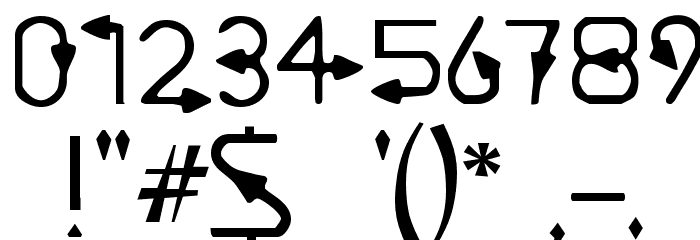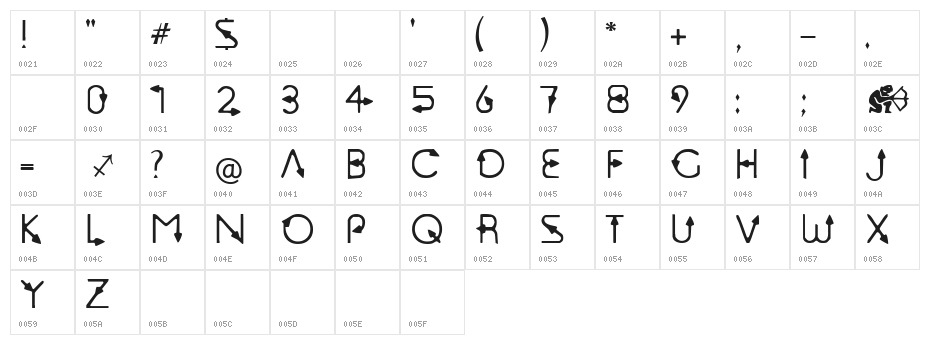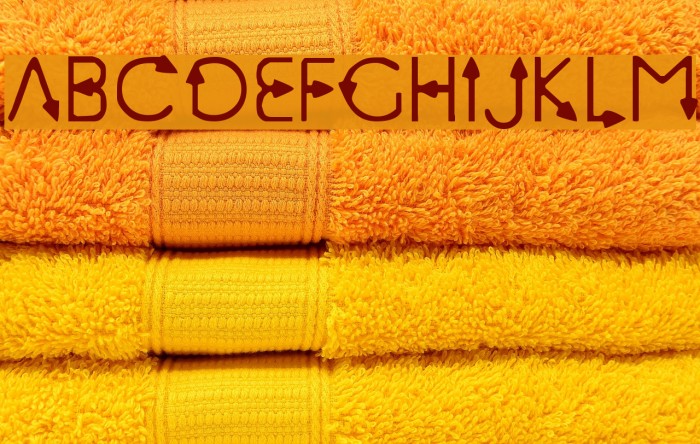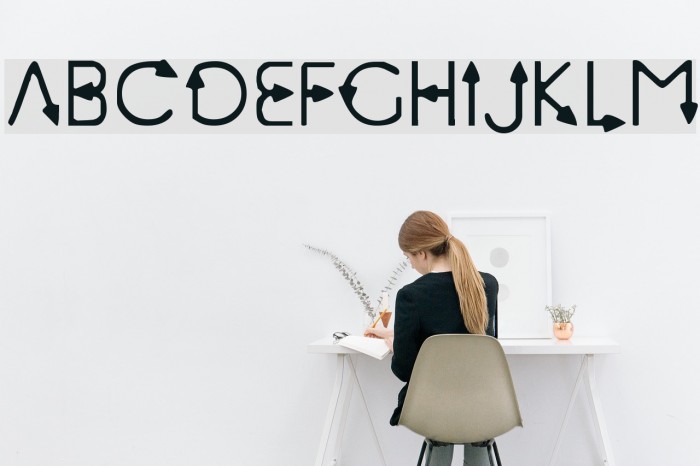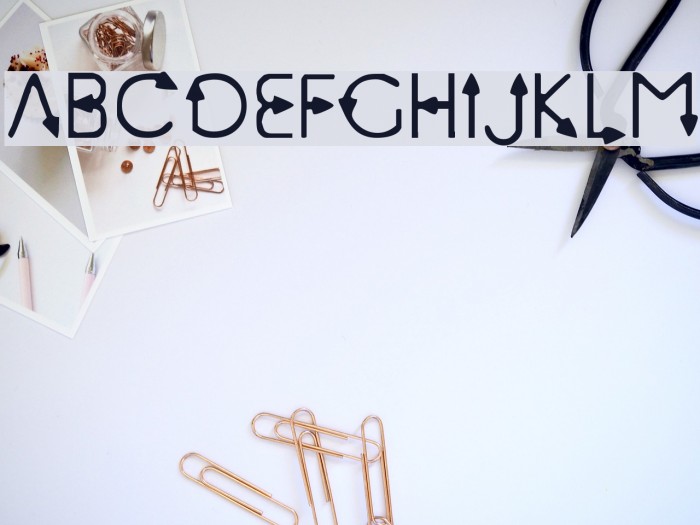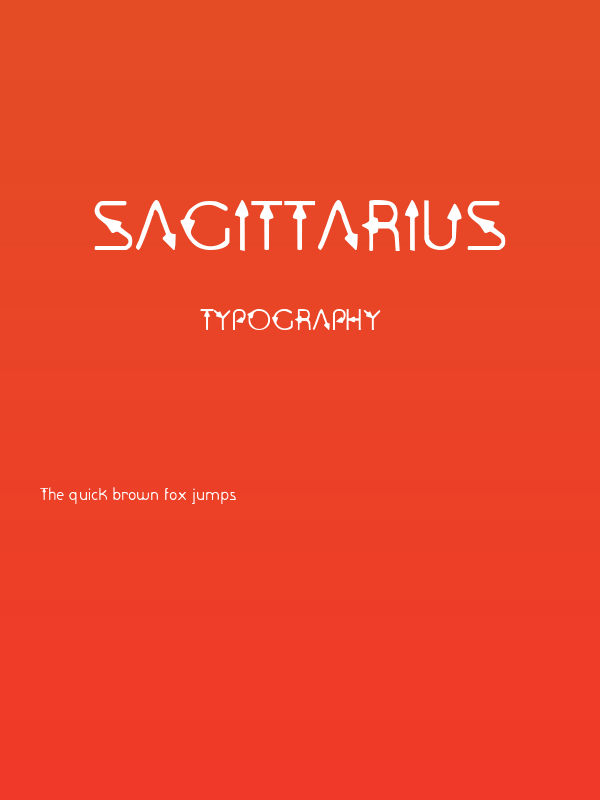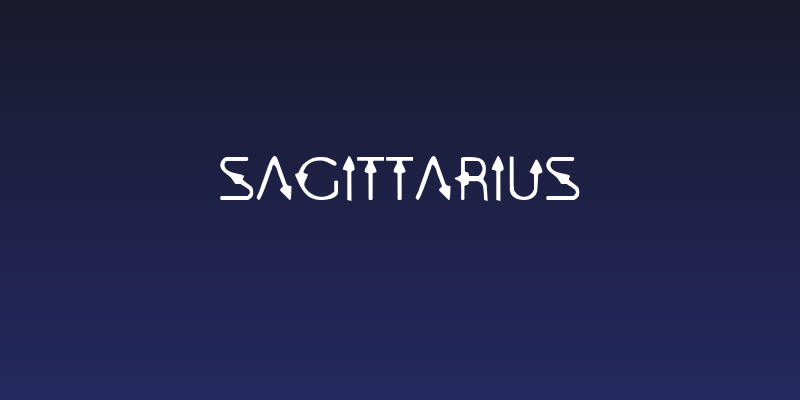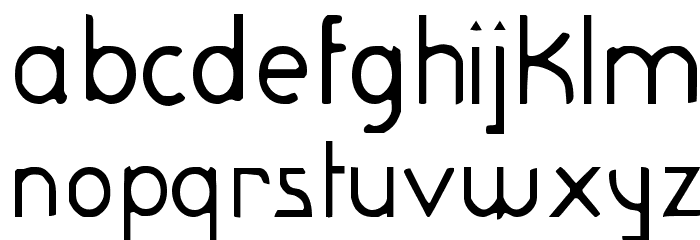
Sagittarius Font
Sagittarius Description
This font features a unique and modern design with geometric elements and arrow-like accents incorporated into the characters. The uppercase letters have a bold presence with distinct angular cuts and pointed extensions, giving them a futuristic and dynamic appearance. The lowercase letters maintain a consistent style, with smooth curves and a slightly playful touch. Numbers are designed with similar geometric features, ensuring uniformity across the font. Special characters are creatively integrated, maintaining the overall aesthetic. The font's design is both eye-catching and versatile, suitable for various creative applications.